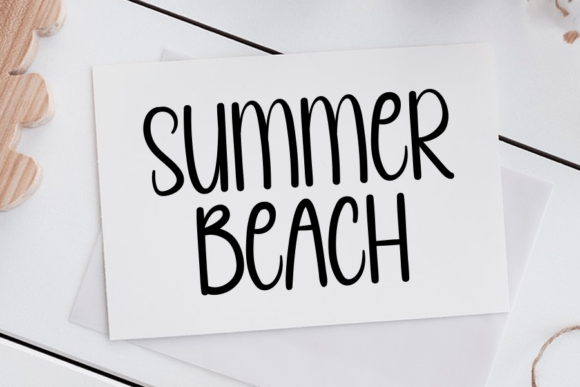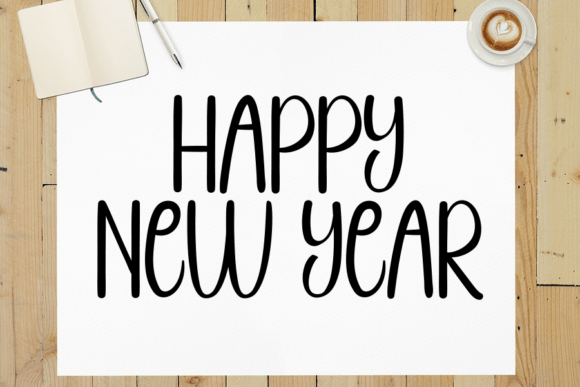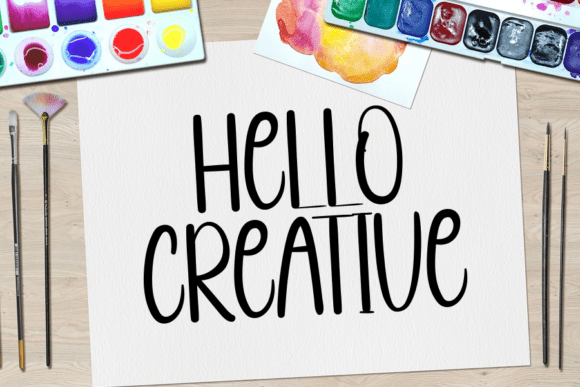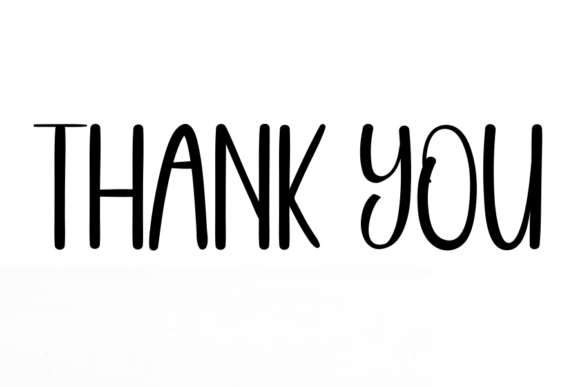
Garden Font: A Simple Handwritten Font for Your Creative Projects
Are you looking for a font that can add a touch of simplicity and naturalness to your designs? Look no further than the Garden Font! This beautiful handwritten font is perfect for a wide range of applications, from greeting cards to headlines, and is sure to elevate your next project to the next level.
What is Garden Font?
Garden Font is a simple handwritten font that is designed to bring a sense of elegance and sophistication to your designs. With its clean lines and natural feel, this font is perfect for designers and crafters who want to add a personal touch to their work. Whether you’re creating a greeting card, a poster, or a website, Garden Font is a versatile choice that is sure to impress.
Key Features of Garden Font
- Handwritten style: Garden Font has a beautiful handwritten style that gives it a personal and natural feel.
- Simple and elegant: The font has a simple and elegant design that makes it perfect for a wide range of applications.
- Versatile: Garden Font can be used for everything from greeting cards to headlines, making it a great addition to any designer’s toolkit.
- Easy to read: The font is easy to read, even at small sizes, making it perfect for body text and captions.
Uses for Garden Font
Garden Font is a versatile font that can be used for a wide range of applications, including:
- Greeting cards: Add a personal touch to your greeting cards with Garden Font’s beautiful handwritten style.
- Posters and flyers: Use Garden Font to create eye-catching posters and flyers that are sure to grab attention.
- Websites and blogs: Add a touch of elegance to your website or blog with Garden Font’s clean and simple design.
- Social media graphics: Use Garden Font to create beautiful social media graphics that are sure to stand out.
- Crafting and DIY projects: Garden Font is perfect for crafters and DIY enthusiasts who want to add a personal touch to their projects.
Tips for Using Garden Font
Here are a few tips for using Garden Font in your designs:
- Use it sparingly: Garden Font is a beautiful font, but it can be overwhelming if used too much. Use it sparingly to add emphasis to your designs.
- Pair it with other fonts: Garden Font pairs well with other fonts, such as sans-serif fonts and script fonts. Experiment with different pairings to find the one that works best for your design.
- Adjust the size and color: Adjust the size and color of Garden Font to fit your design. A smaller size and a bold color can add emphasis to your text, while a larger size and a pastel color can create a softer look.
Garden Font is a beautiful handwritten font that is perfect for designers and crafters who want to add a touch of simplicity and naturalness to their designs. With its clean lines and elegant design, this font is sure to elevate your next project to the next level. Whether you’re creating a greeting card, a poster, or a website, Garden Font is a versatile choice that is sure to impress.